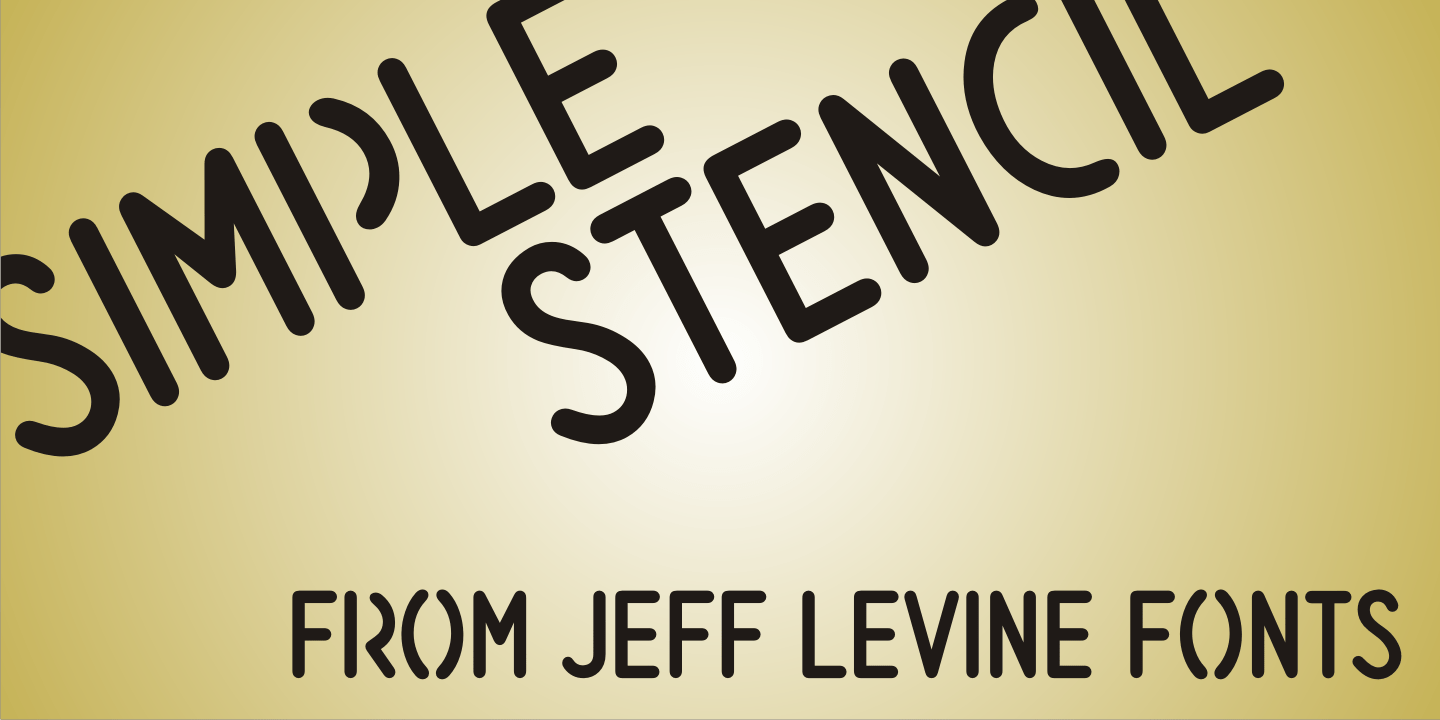
Simple Stencil
A brass hand-punched shipping stencil from the 1950s inspired Simple Stencil JNL. The rounded ends of the characters are reminiscent of technical lettering templates, especially since there are a combination of solid letters and those with stencil 'breaks' as many of those pen and ink templates possesed.
Simple Stencil JNL Regular by Jeff Levine Fonts